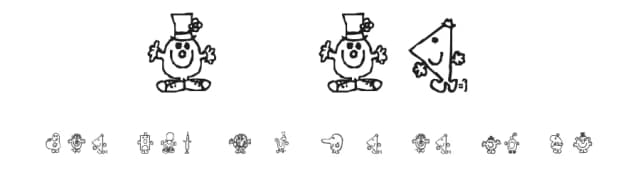
About Cartouche Font
Cartouche is a dingbat font designed by Pearlygates. It includes 226 glyphs, a regular weight, TTF (TrueType) format, and 202 languages. Cartouche is free to download; check the license details on this page before commercial use. Dingbat fonts like Cartouche work best for icons, ornaments, bullet points, and decorative accents.
Cartouche Font is a versatile dingbats font that works for both headings and body text. Pair it with a contrasting sans-serif or serif font to add visual interest and a clear distinction between titles and body copy.
Cartouche Font
by Pearlygates
Cartouche Font is a dingbats typeface by Pearlygates, ideal for logos, invitations, branding, and creative projects.